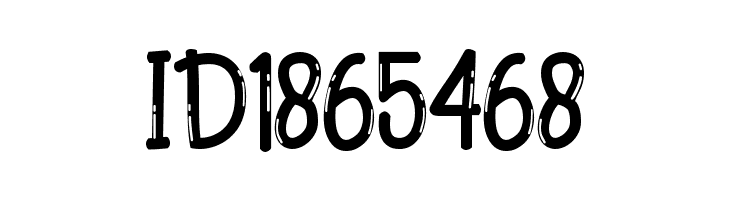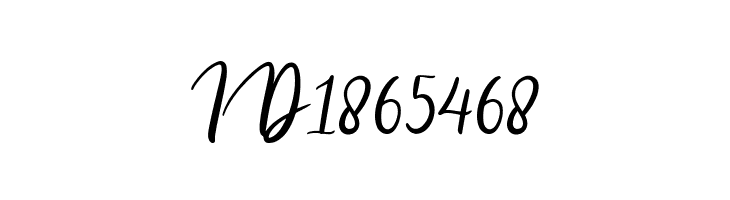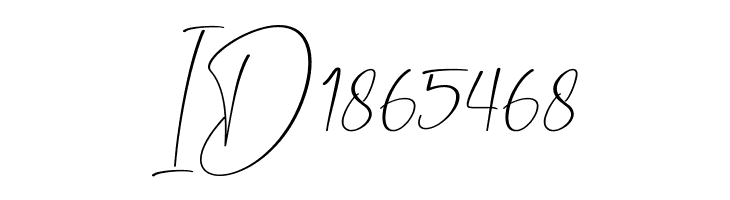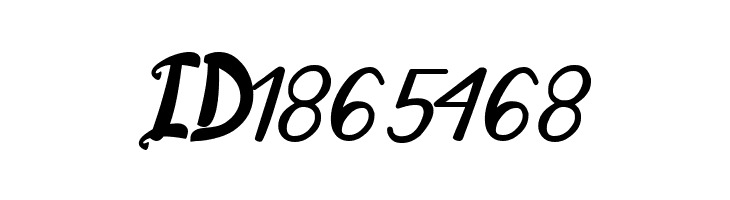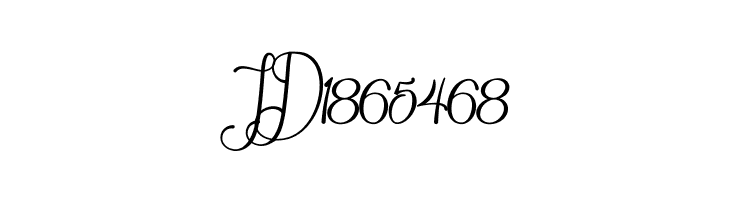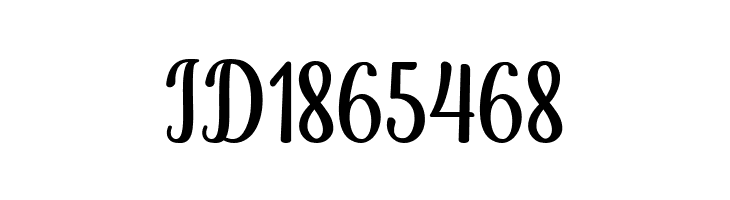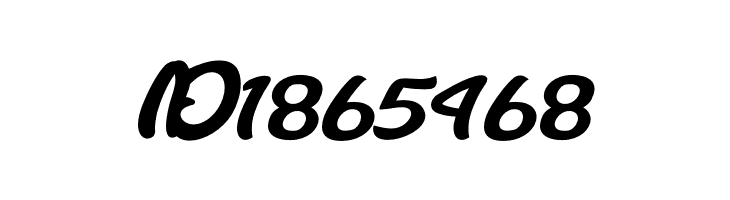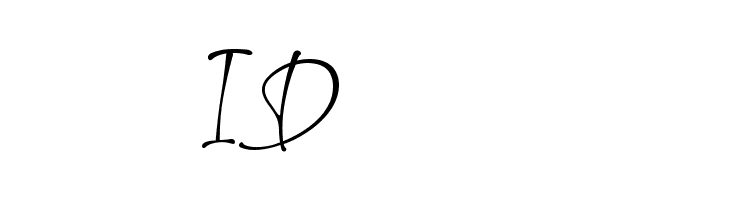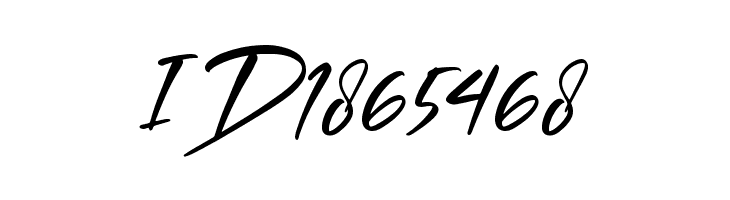
• Galih Ratna
A modern, elegant cursive font with fluid connections and graceful curves.
• Galinah
An elegant and flowing script font with intricate decorative elements.
• Galistan
A modern, playful script font with medium contrast and elegant curves.
• Gallant
A bold, dynamic script font with elegant, flowing cursive letters.
• Gallatone
A fluid and elegant script font with a personal touch.
• Galler Rebunk Blank
A playful, hand-drawn font with bold, rounded characters.
• Gallilea
A lively, cursive font with elegant connections and a dynamic flow.
• Gamaleon
A graceful and elegant script font with flowing curves and decorative flourishes.
• Ganboster [Demo]
A dynamic and fluid handwritten script with elegant, flowing strokes.
• Gandhi
A bold, expressive script font with smooth, flowing curves and a handwritten appearance.